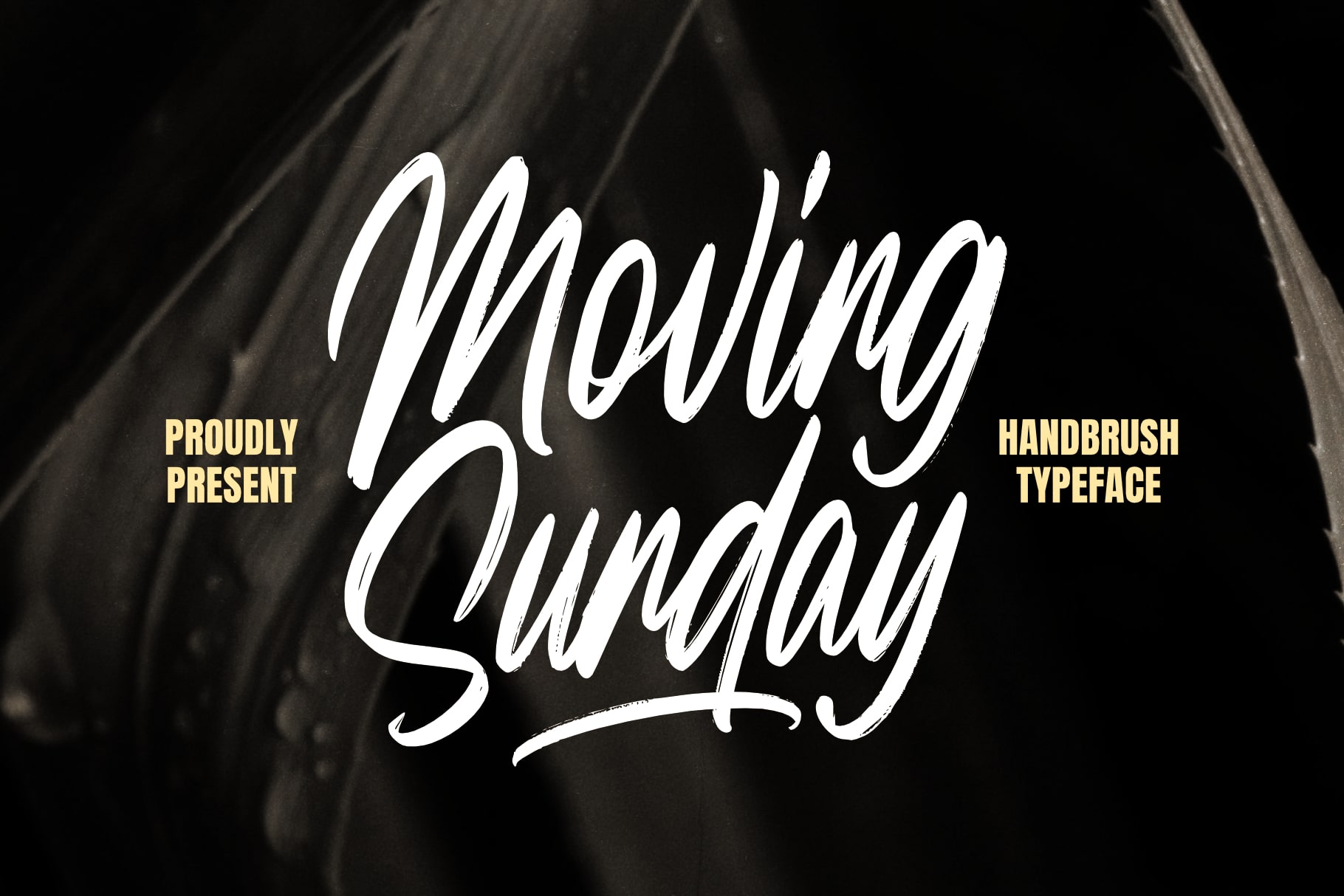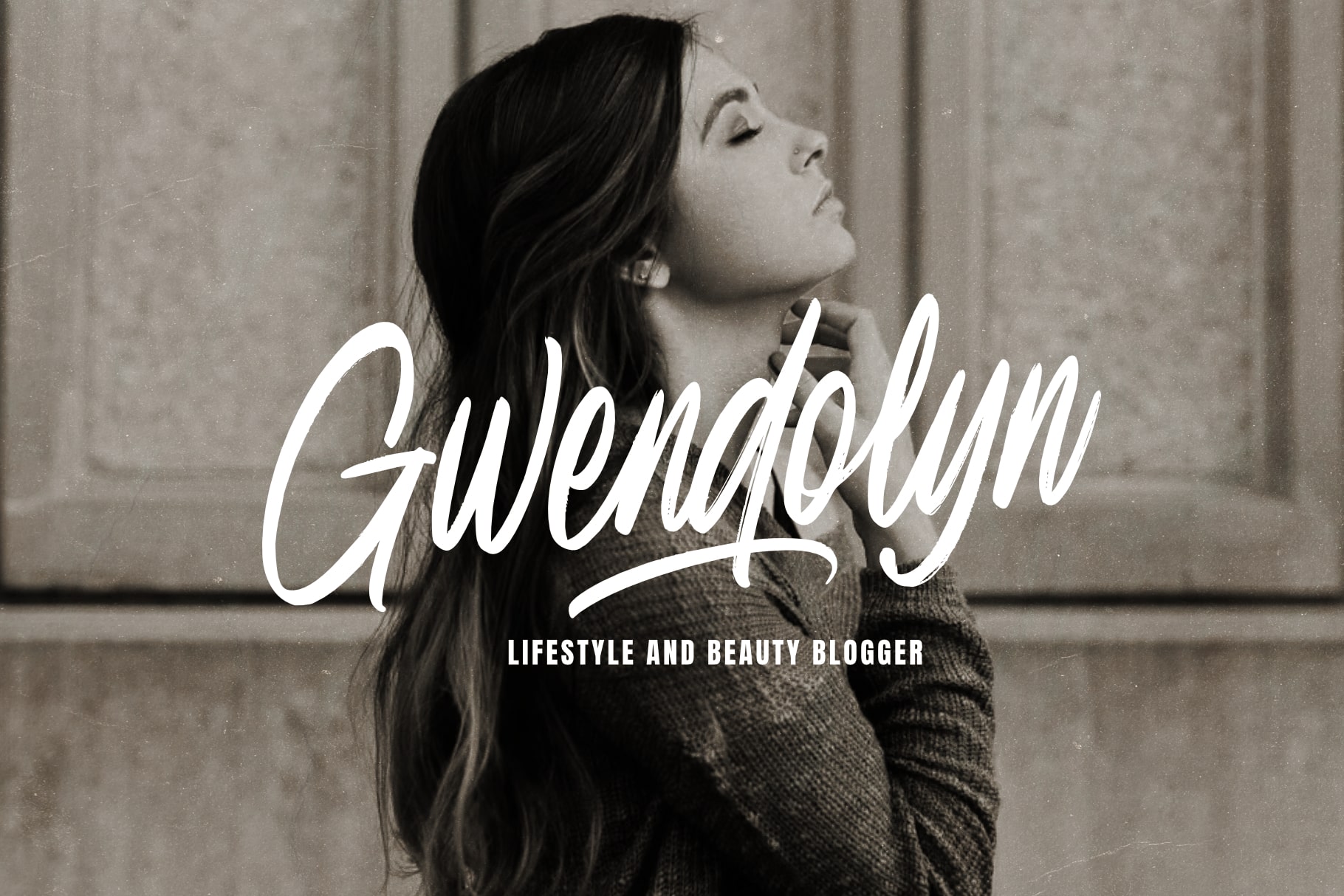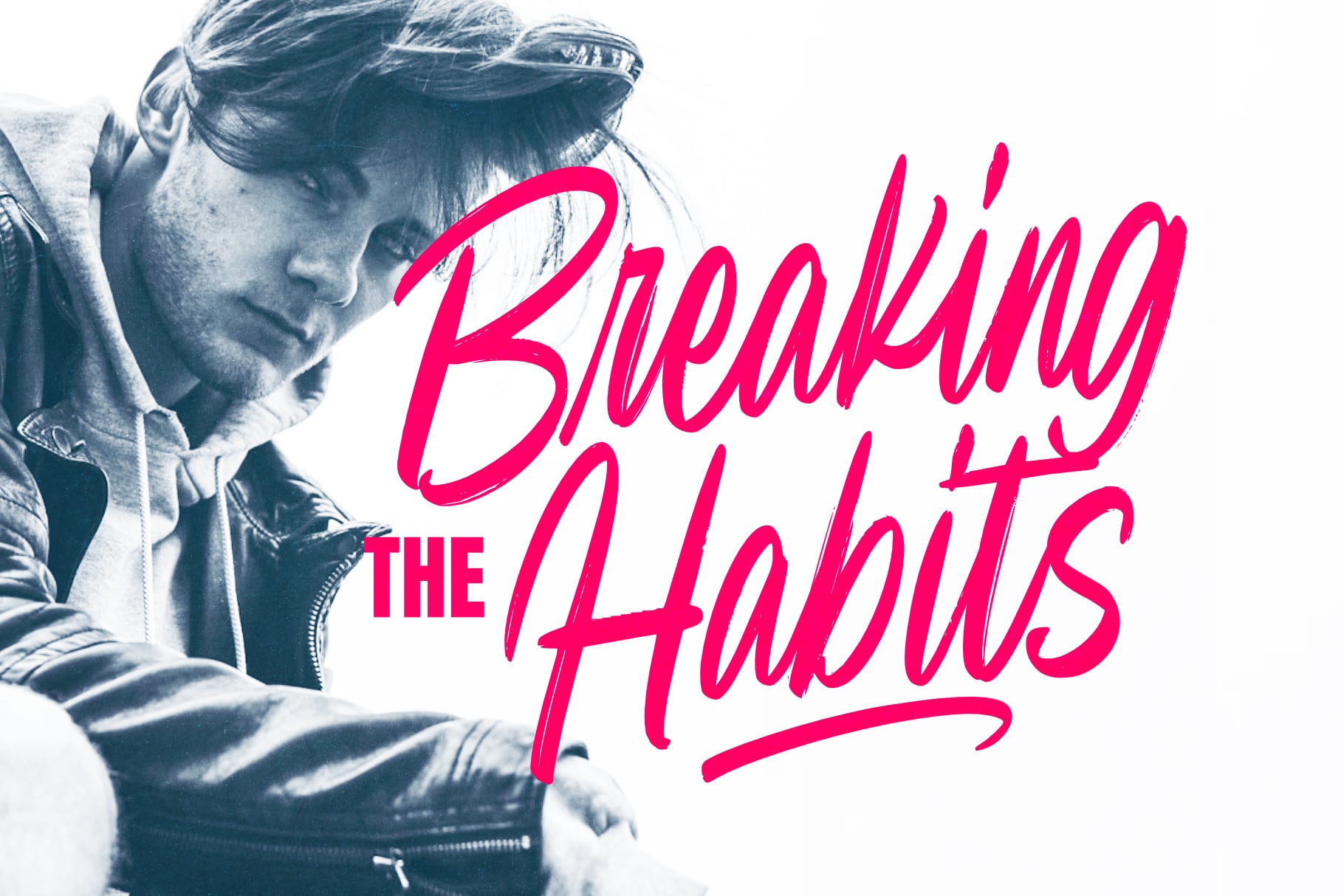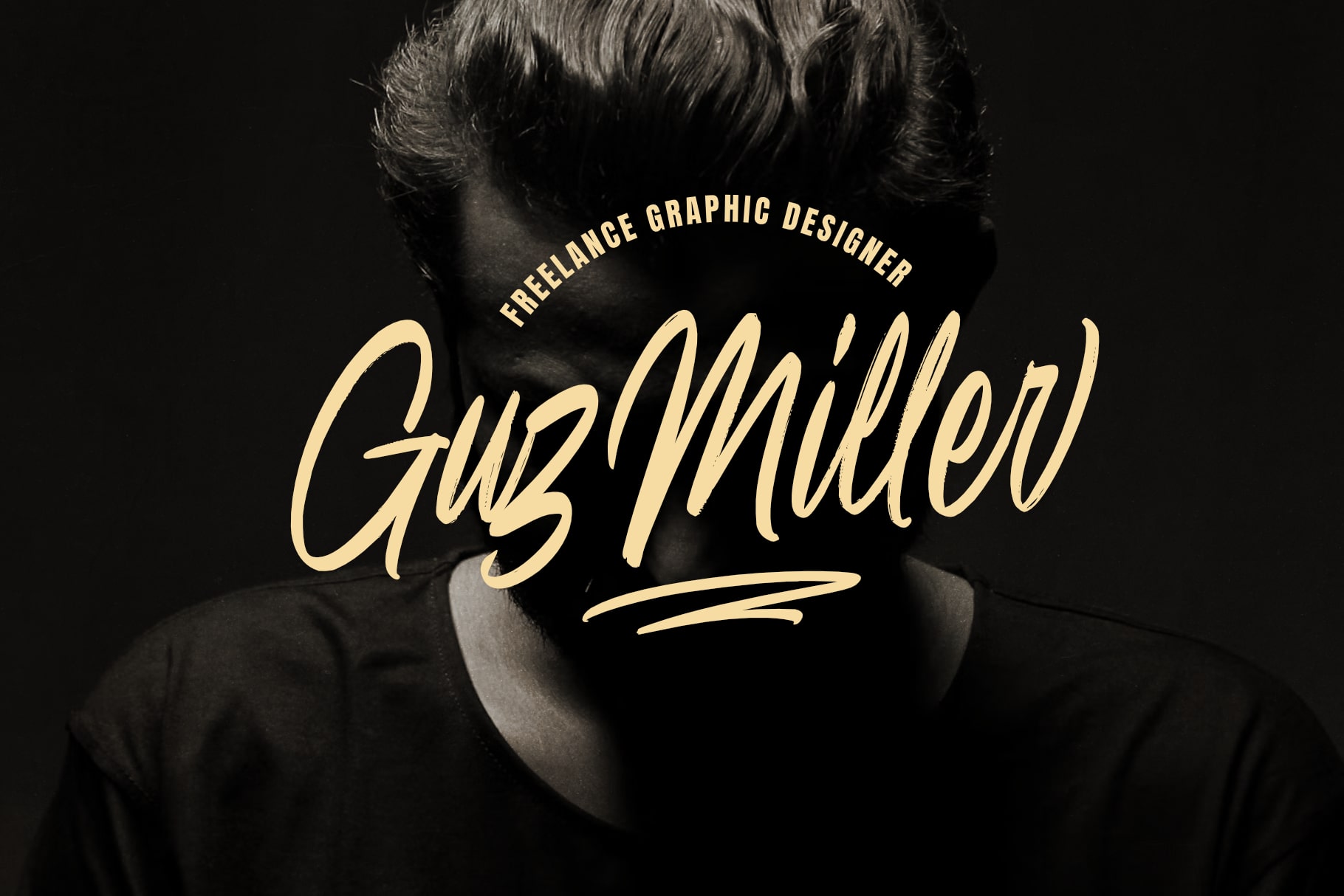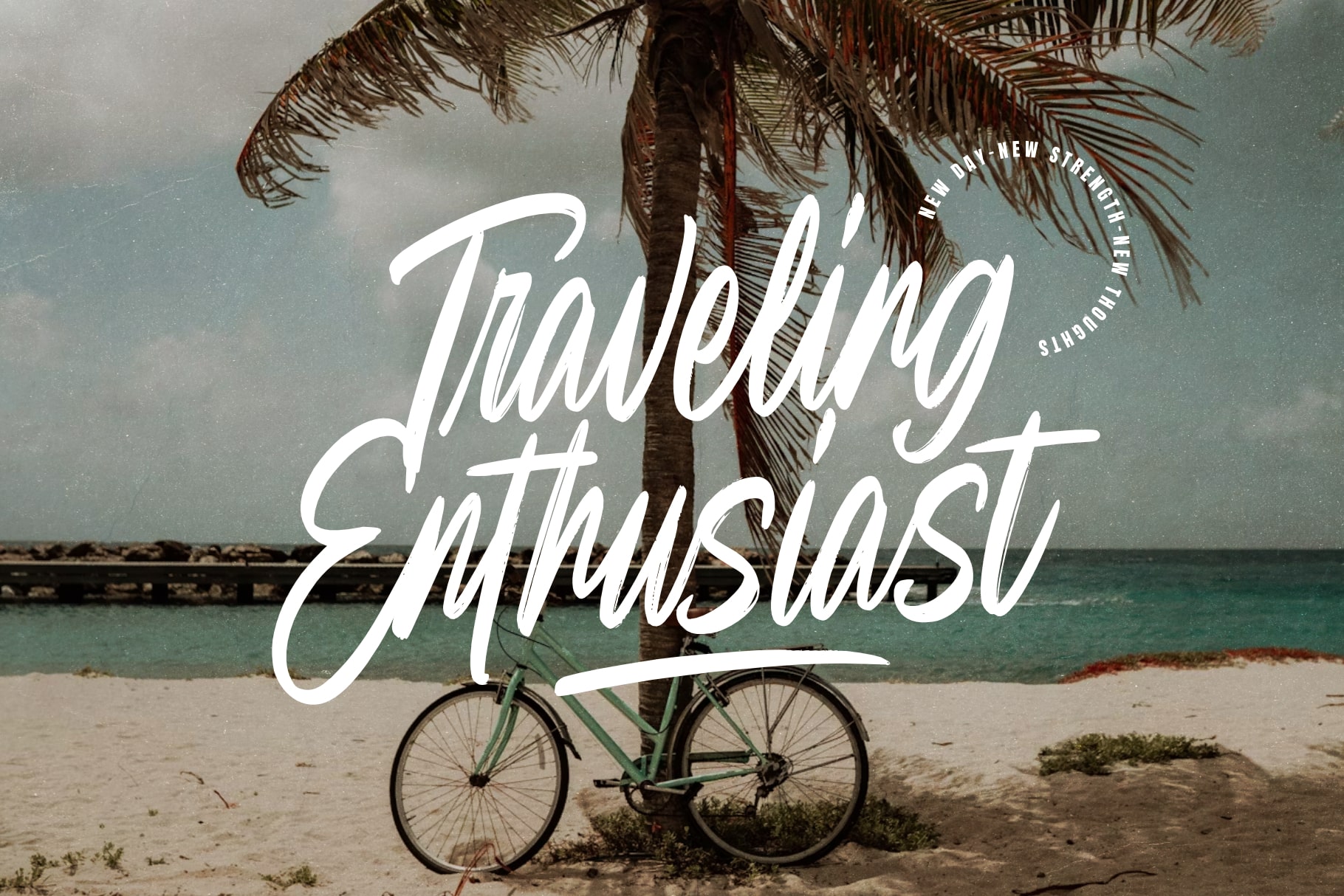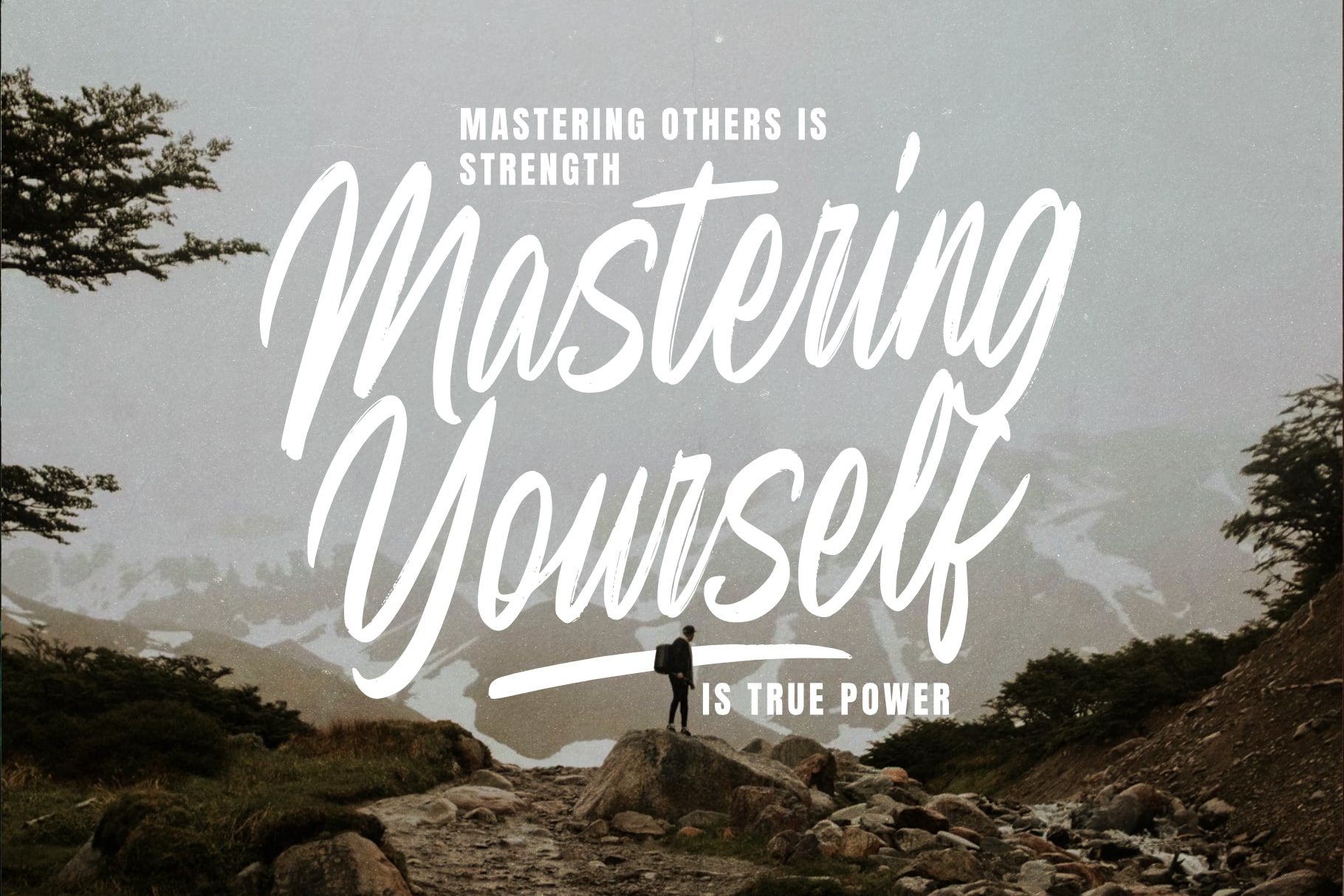
- Moving Sunday Handbrush
Moving Sunday is a charming and expressive handbrush handwritten font that captures the essence of spontaneity and warmth. With its natural brush strokes and playful letterforms, this font brings a delightful and organic feel to your designs. Inspired by carefree moments and lazy Sundays, Moving Sunday infuses your projects with a sense of relaxation and authenticity.
The font’s irregular lines and varied textures create a dynamic and lively appearance, making it perfect for projects that seek to convey a sense of freedom and individuality. Whether you’re designing posters, apparel, or social media graphics, Moving Sunday adds a touch of personality and character to every design.
Moving Sunday invites you to embrace imperfection and embrace the beauty of the handmade. Each letter feels like a brushstroke, capturing the spontaneity of the moment. Embrace the natural and carefree spirit of Moving Sunday handwritten font, and let your designs come alive with a sense of playful charm.